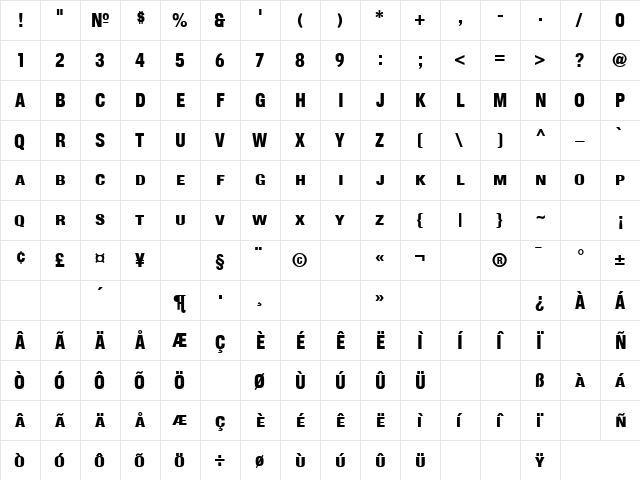
CorpusGothic SmallCaps Font Preview
CorpusGothic SmallCaps
Design Context for CorpusGothic Typeface
CorpusGothic has the quiet confidence of well-executed sans-serif typography: versatile, unobtrusive, and dependable at any size.
Font Pairing: Works well alongside a characterful serif or display font that can carry the expressive load while CorpusGothic handles the functional copy.
Pro Tip: Pair CorpusGothic with a display or serif font for headlines — its neutral character makes it an excellent supporting player in complex typographic systems.